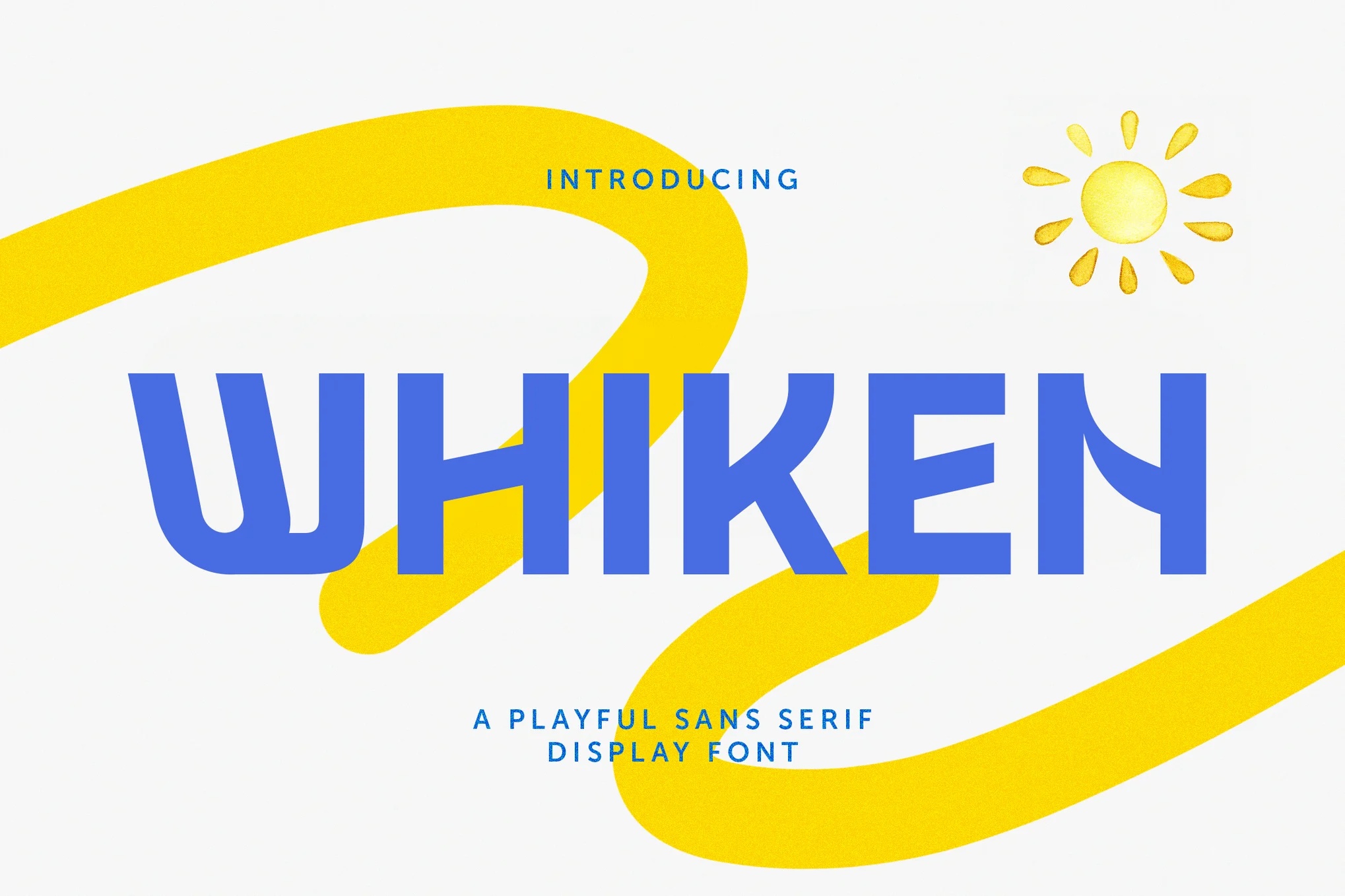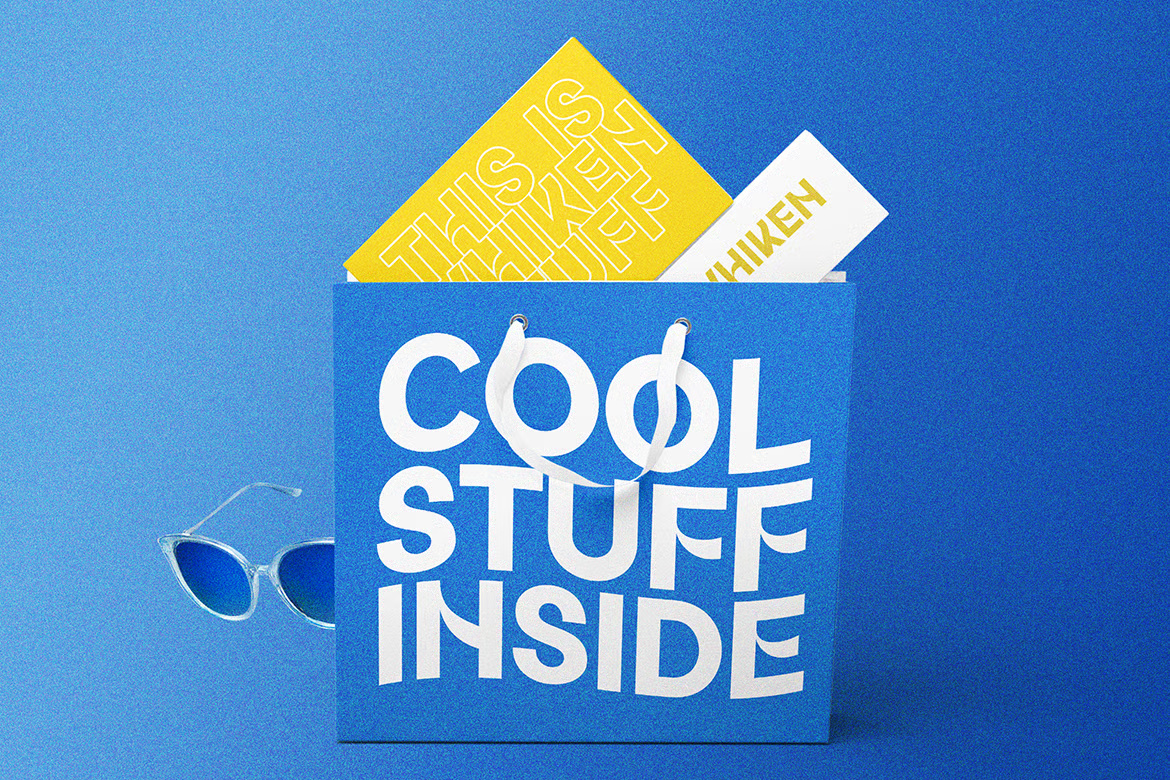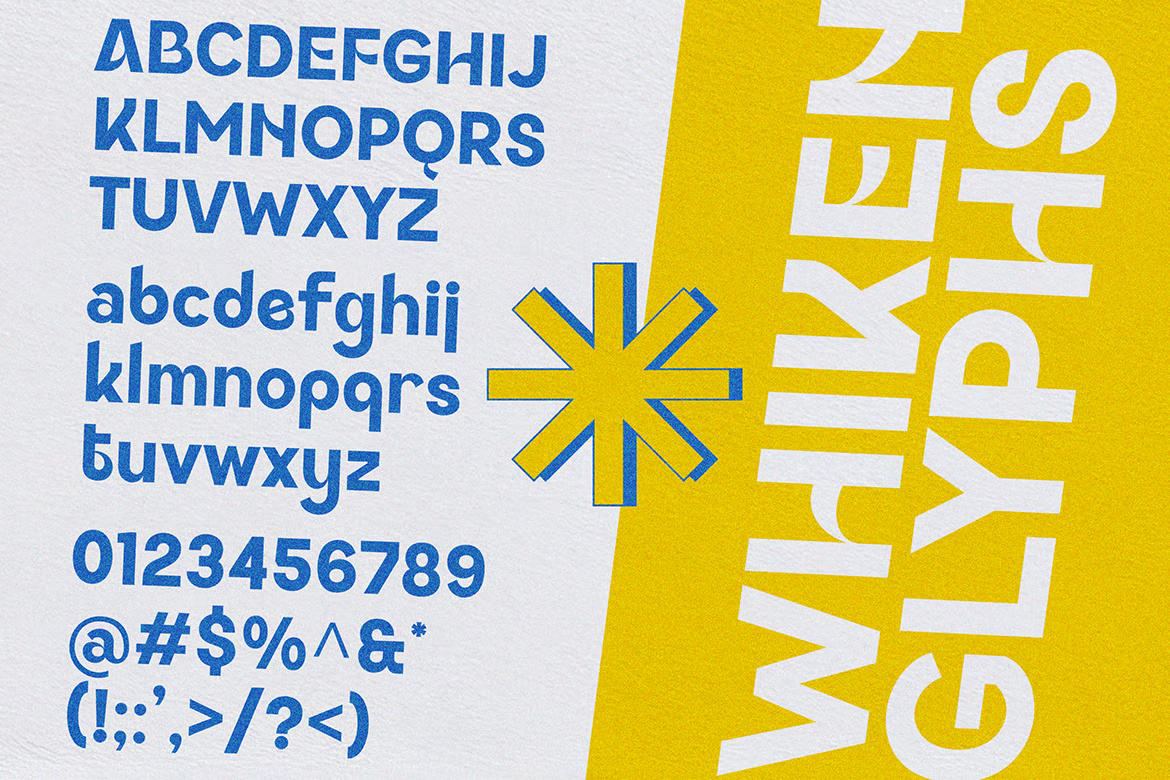
Whiken looks like a friendly sans that has been snipped with scissors. Terminals are cut at angles, the W has a looped middle, and letters lean very slightly in different directions, which gives words a playful bounce. The cover sets WHIKEN in blue across a yellow ribbon and a little sun.
The shopping bag mock-up, “Cool Stuff Inside”, shows it stacked in white capitals, and the glyph sheet has full upper and lowercase, numerals and punctuation. Jaruka Studio also made a Decorative style alongside the Regular, and the font has around 229 glyphs with OpenType alternates.
Best uses for Whiken
- Retail bags and packaging
- Summer campaigns and posters
- Youth and lifestyle brands
- Social media graphics
- Kids’ products
Whiken is lively, so a calm sans works next to it. DM Sans is clean for body copy. Nunito keeps the friendly tone. For small labels in capitals, Montserrat is a safe choice.
Whiken Display Decorative Font